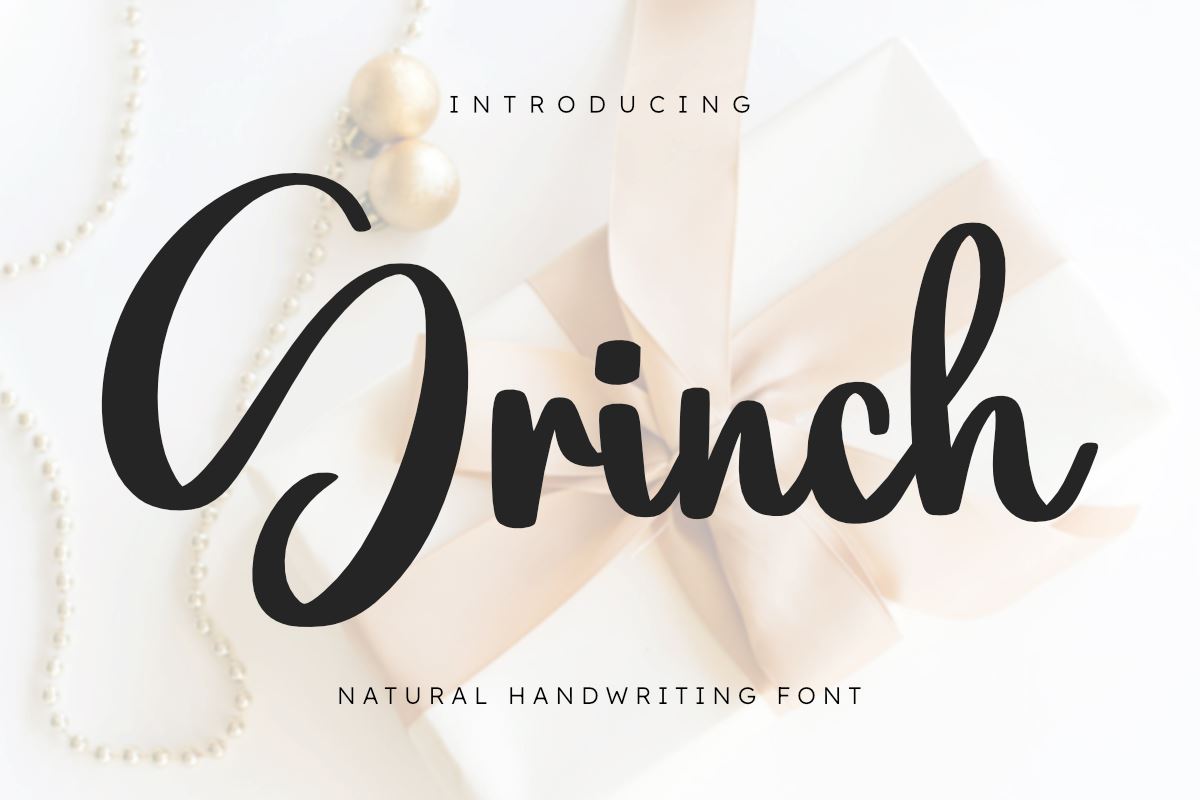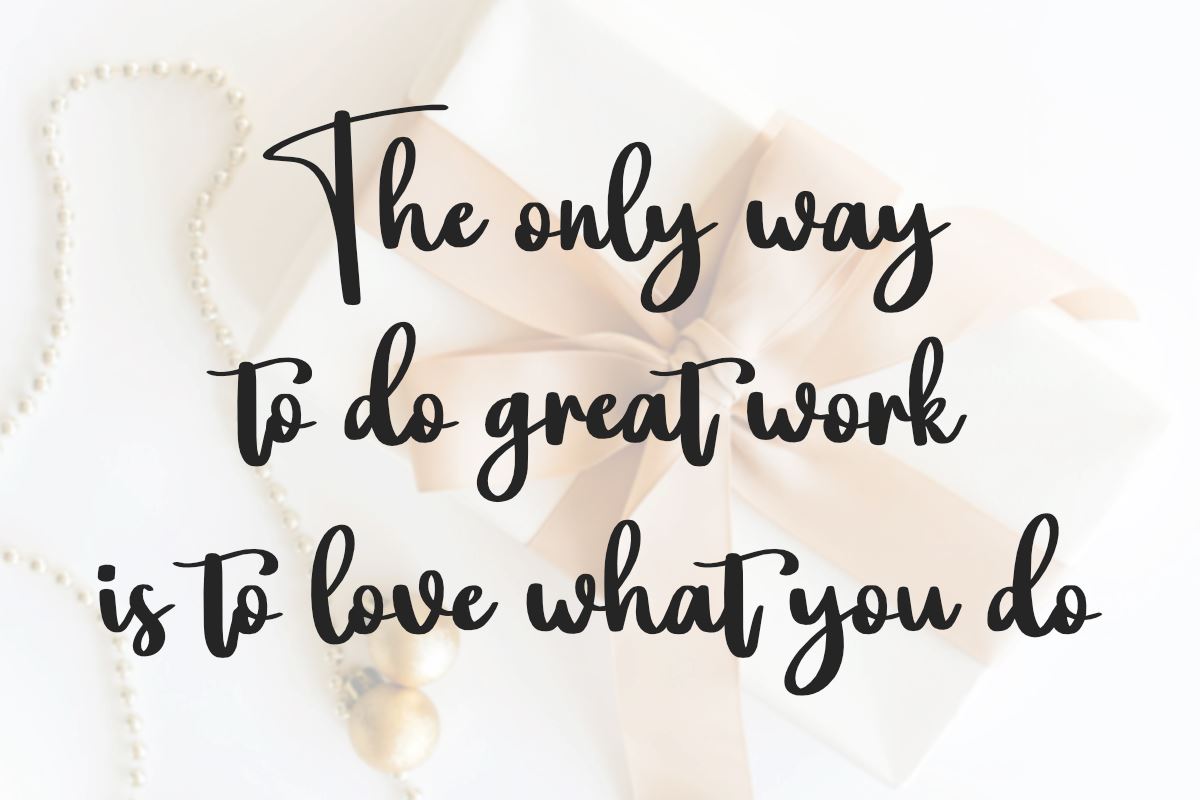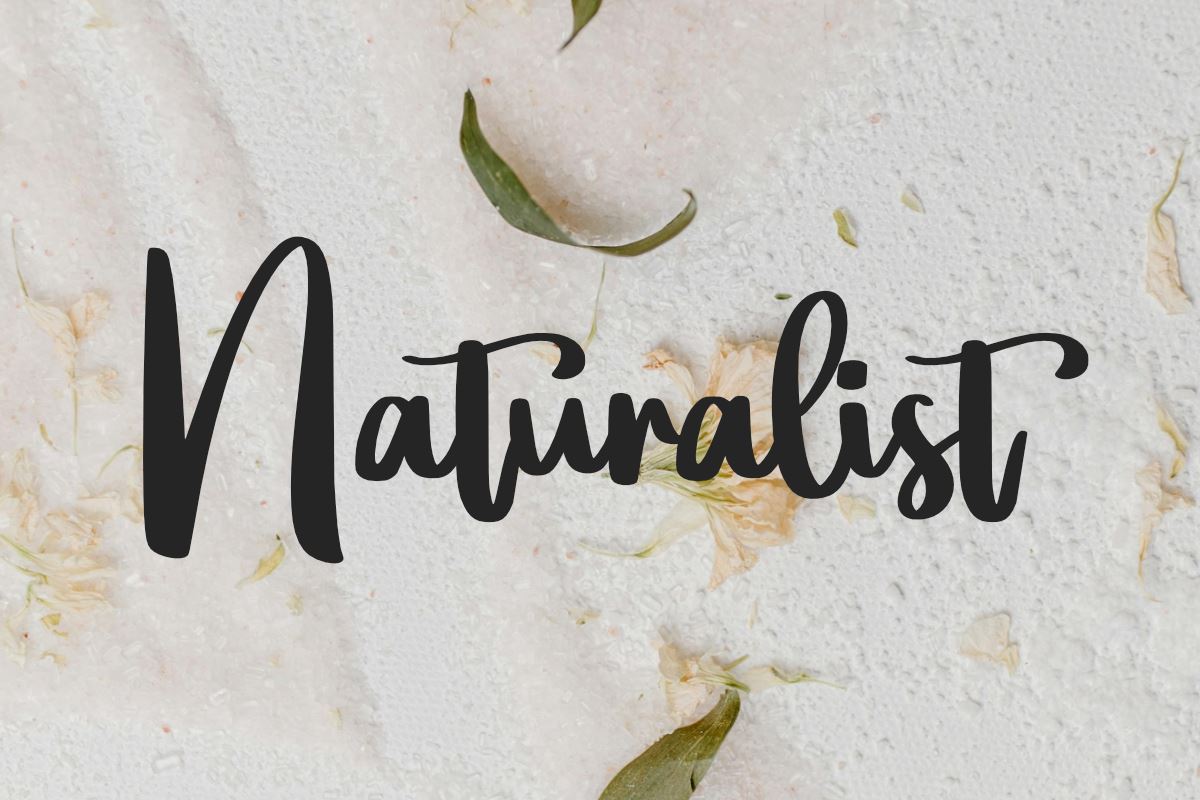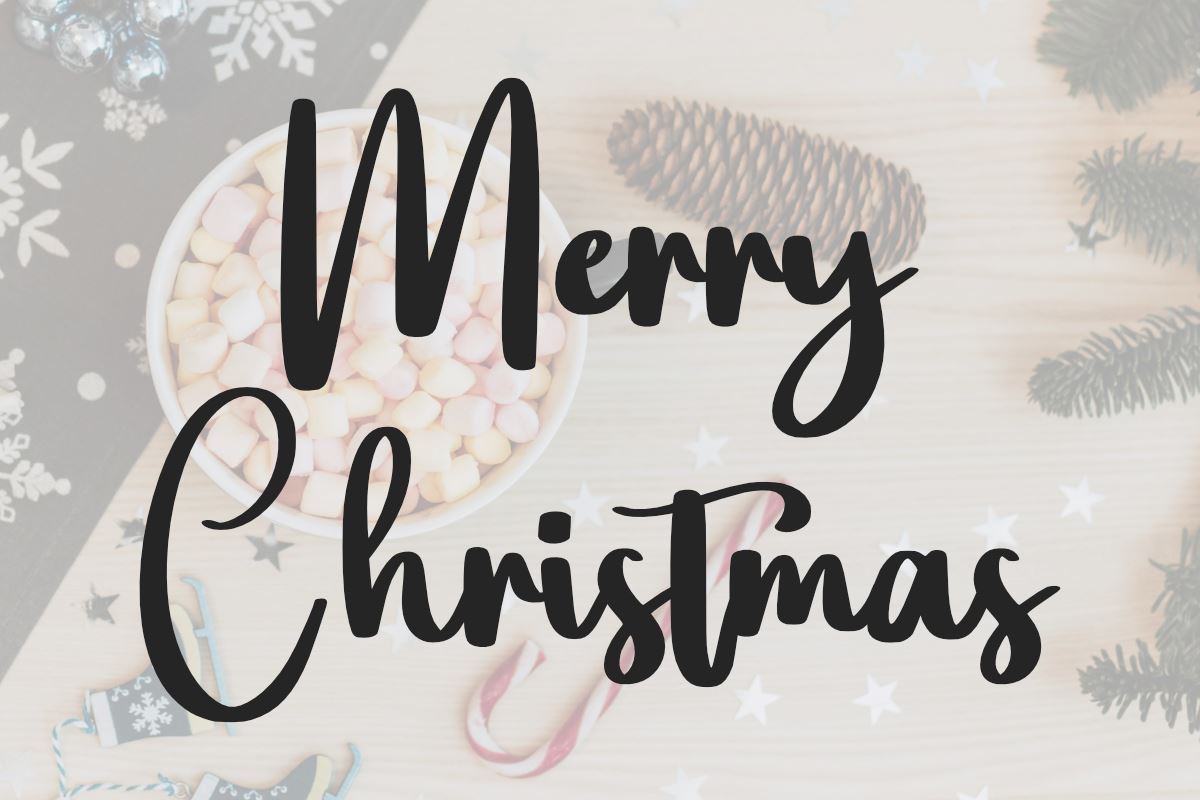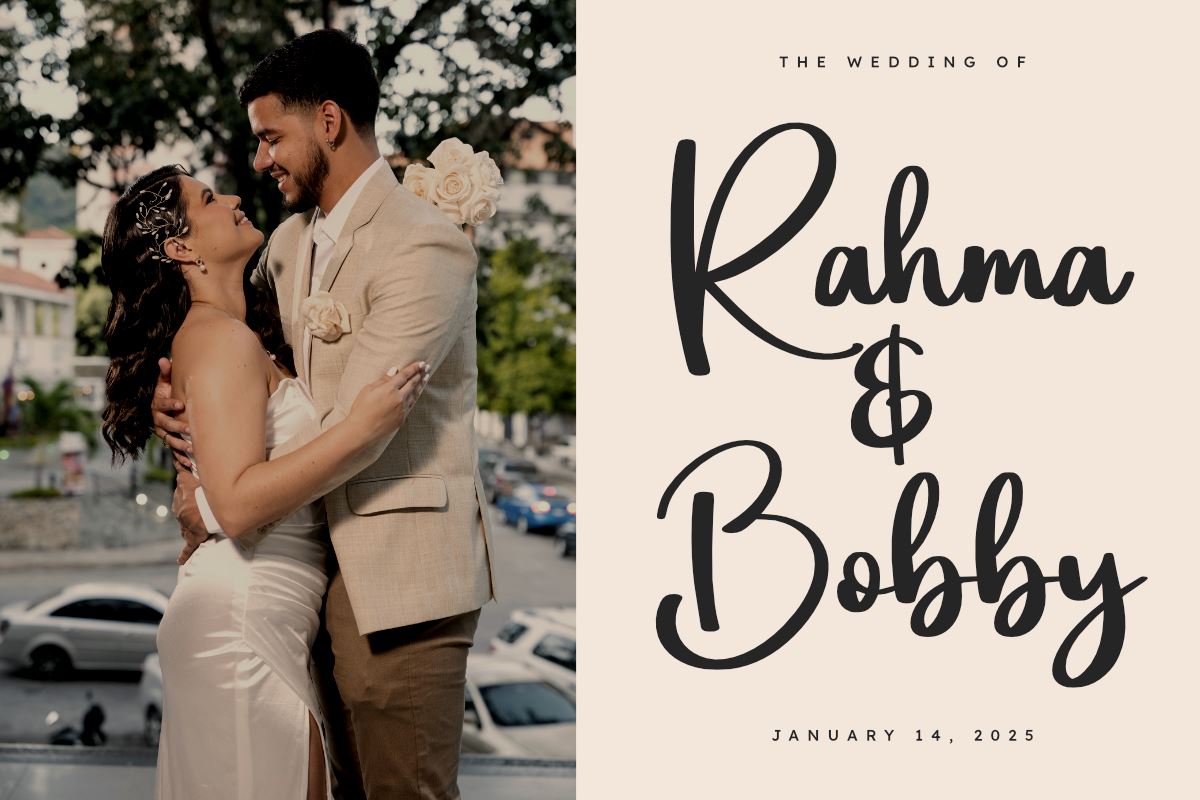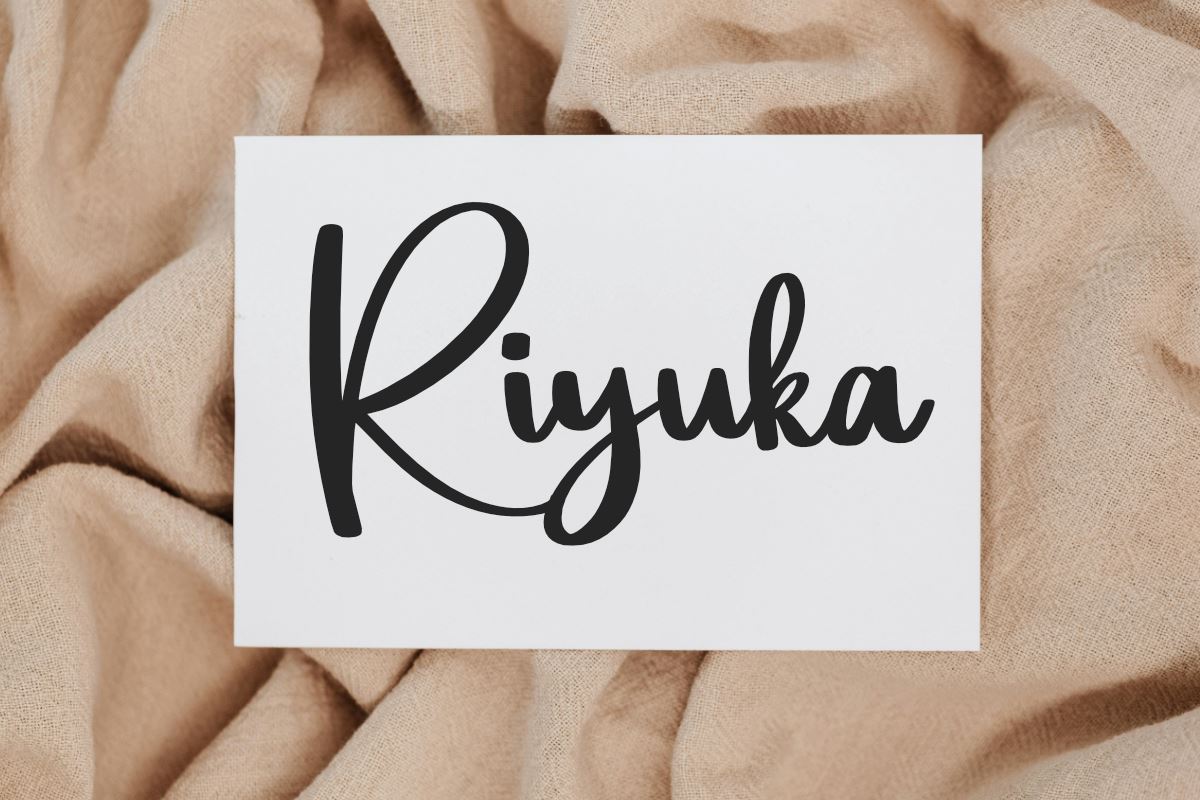
Grinch – Natural Handwritten Font
About Grinch – Natural Handwritten Font
Grinch is a sweet and cursive handwritten font. This gentle font will look gorgeous on a variety of design ideas. It will add a joyful and romantic touch to each of your projects! Perfectly fit for branding, logo, wedding things, greeting cards, fashion, lookbook, marketing promotion, and any time you want your design to look fancy and elegant but still casual.